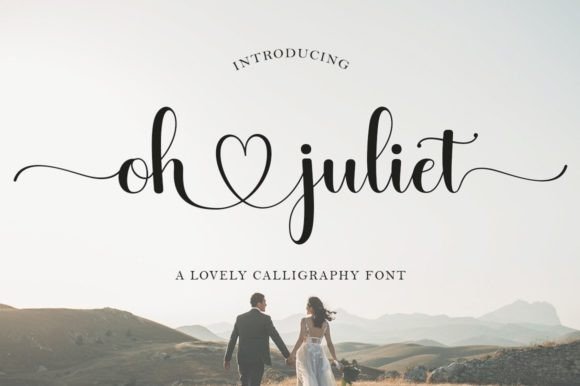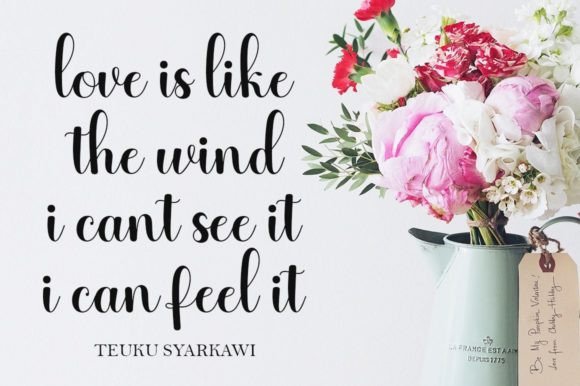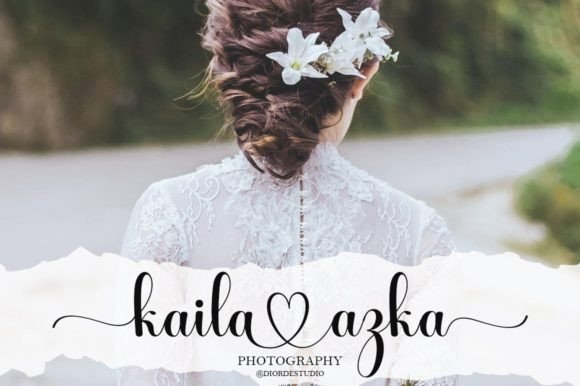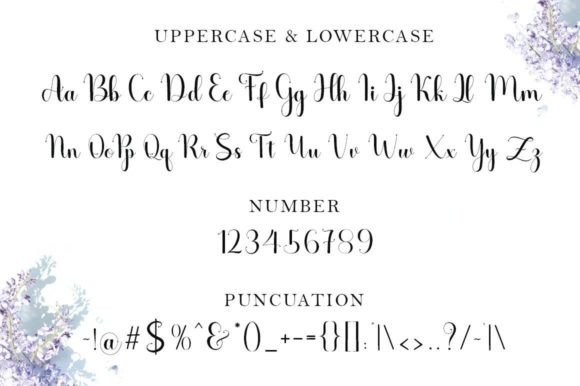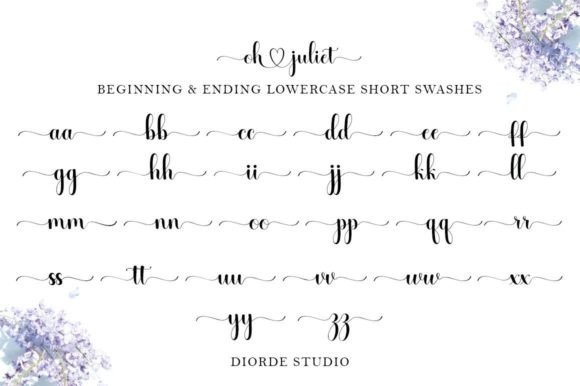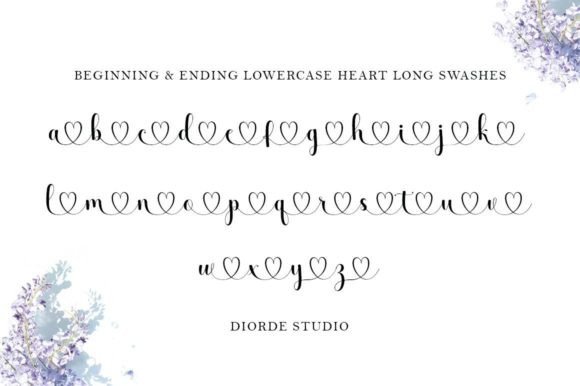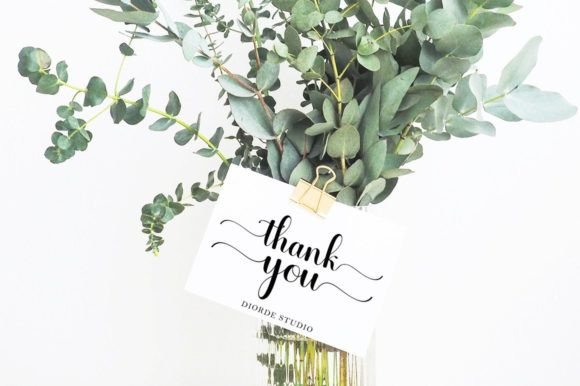
Oh Juliet Font
About Oh Juliet Font
“Oh Juliet” is a stylish and delicate script font designed to add a romantic touch to a wide spectrum of applications. From greeting cards to headlines, this font is crafted to infuse a sense of elegance and sophistication into each of your creations.
The script style of “Oh Juliet” exudes a graceful and refined aesthetic, making it particularly well-suited for projects that require a touch of romance. Whether you’re creating romantic greeting cards, elegant headlines, or any design that aims to evoke a sense of love and beauty, “Oh Juliet” is the perfect choice.
One notable feature of “Oh Juliet” is its PUA encoding, which allows easy access to all the glyphs and swashes. This feature enhances user convenience, enabling effortless integration of various elements into your designs. The inclusion of swashes provides an additional level of customization, allowing you to tailor the font to your specific creative vision.
The delicate and stylish nature of “Oh Juliet” ensures its versatility across a range of design contexts. It can effortlessly enhance the beauty of wedding invitations, romantic posters, or any project where a touch of sophistication is desired.
In summary, “Oh Juliet” is not just a font; it’s a design tool that brings a stylish and delicate script to your creative projects. Embrace its romantic allure, and let it be the key element that elevates the aesthetics of your greeting cards, headlines, and various other design endeavors.